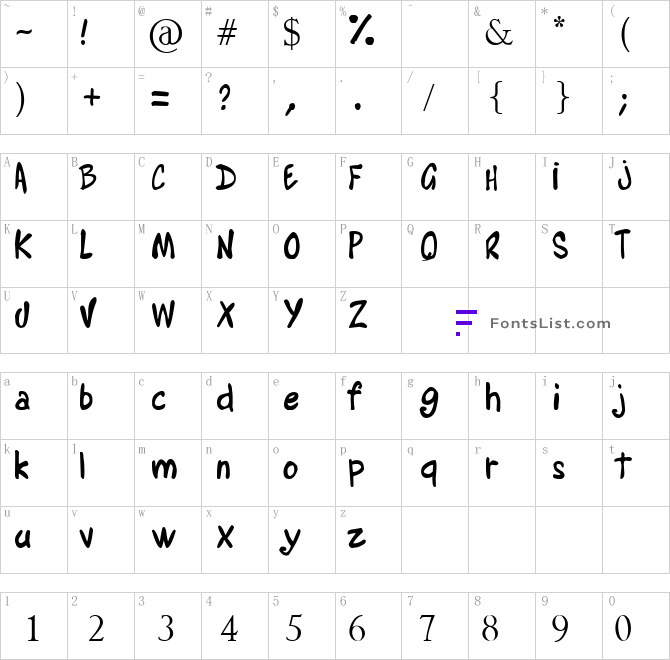
- Font Name:Alyssa Martinel
Alyssa-Martinel.ttf is a very beautiful artistic font, Alyssa-Martinel.ttf is widely used in the design and printing of various books and pictures,Alyssa-Martinel.ttf has a strong visual impact,Alyssa-Martinel.ttf is a commonly used font in newspapers, magazines and books, and is used in posters, e-commerce Poster design, store design, logo design, font design and other fields.Alyssa-Martinel.